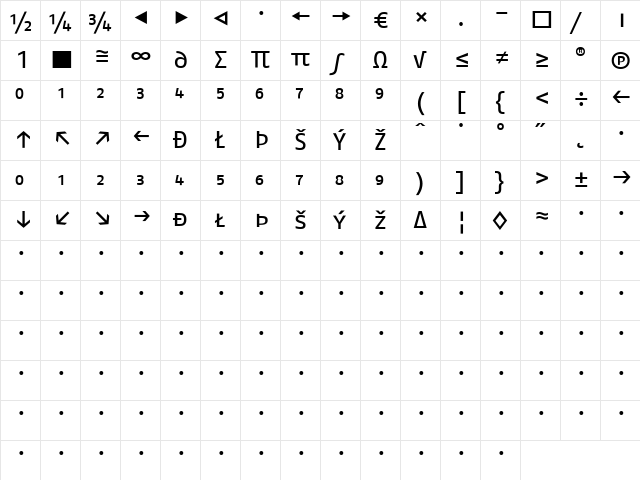
FagoEx Regular
Design Context for FagoEx Typeface
FagoEx is a composed and adaptable typeface that performs quietly and consistently across a wide range of design contexts.